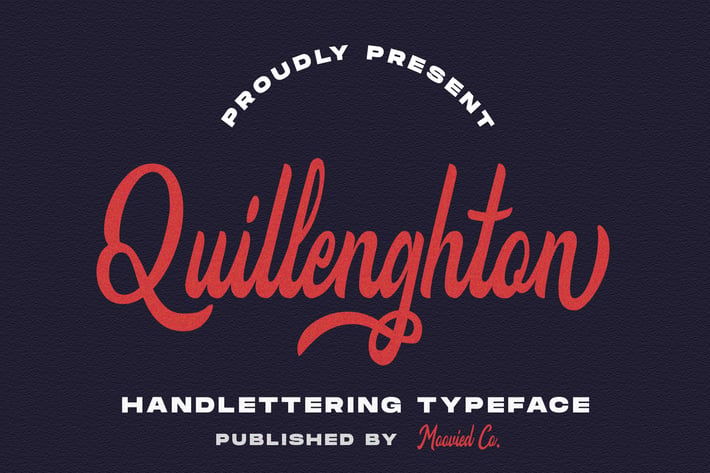
Quillenghton Typeface
Quillenghton Typeface is a modern signature, It is perfect for blogging, social media, branding, product packaging, wedding invitations, branding, headlines, signage, labels, signature, book covers, posters, quotes and more.